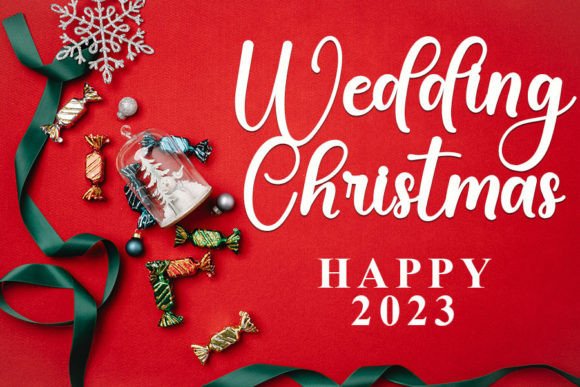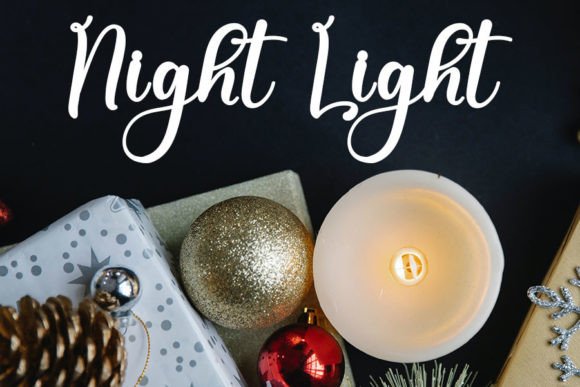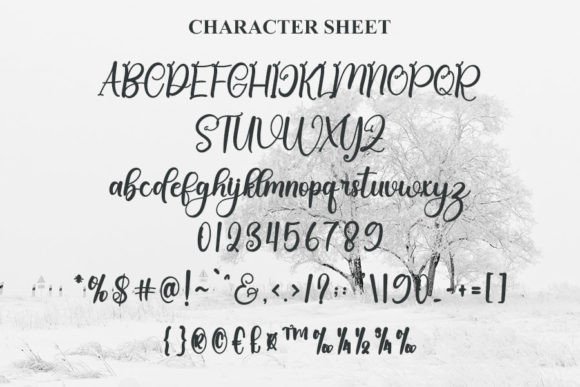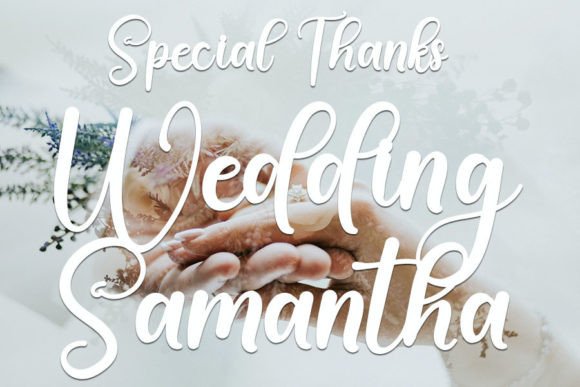
Samantha Font
About Samantha Font
Samantha font is a friendly handwritten typeface, meticulously crafted to become a true favorite for designers and creatives alike. When you download Samantha font, you add a warm, inviting, and natural touch to your font library. This font is ideal for various creative projects that need a personal and approachable feel.
Warm and Natural Handwritten Style
Samantha font features smooth, flowing strokes that create a warm and natural handwritten look. Its design strikes a perfect balance between elegance and casual friendliness. This makes it perfect for projects that aim to evoke a sense of authenticity and personal connection, such as invitations, branding, and social media posts.
Versatile and Easy to Use
Thanks to its versatile design, Samantha font can be used across many different types of projects. It works beautifully for logos, greeting cards, posters, packaging, and digital designs. The font adds a personal, handwritten charm that enhances the visual appeal of your work while ensuring readability.
Enhance Your Designs with Samantha Font
Using Samanthafont will help your projects stand out by giving them a unique, handcrafted feel. Whether you’re working on professional branding or personal crafts, this font will elevate your designs and create an emotional connection with your audience.